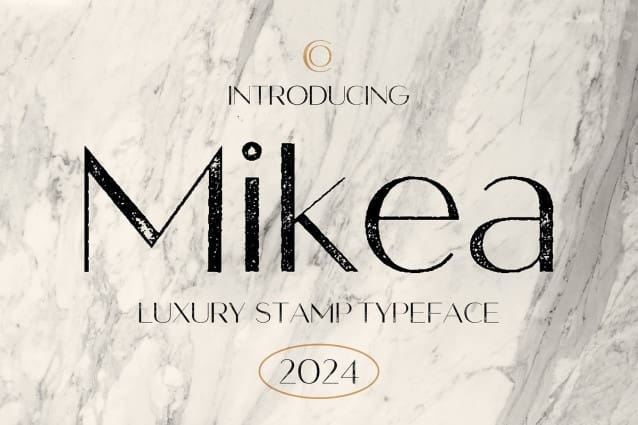
Mikea Stamp Font
Mikea Stamp Font: Vintage Charm in High Contrast. Distinctive Sans Serif Design Mikea Stamp features a striking sans serif typeface with high contrast, adding visual intrigue to each character.
Vintage Appeal with Stamp Effect The font exudes vintage charm, enhanced by a unique stamp effect that gives it an authentic retro vibe.
Ideal for Display Purposes Tailored for display applications, This font excels in various design projects, from posters to packaging, thanks to its bold presence and eye-catching aesthetic.
Versatile and Timeless Beyond its vintage allure, This font offers versatility and timelessness, ensuring it remains relevant across diverse design contexts.
A Vintage Gem This font stands out as a vintage gem in the world of display typography. With its striking sans serif design, high contrast, and authentic stamp effect, it brings a touch of nostalgia and sophistication to any project. Discover the timeless charm of This font for your next design endeavor.